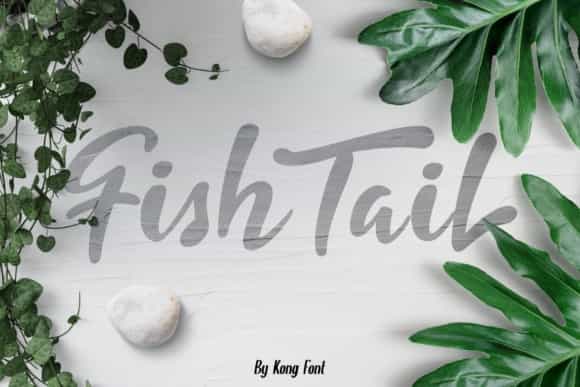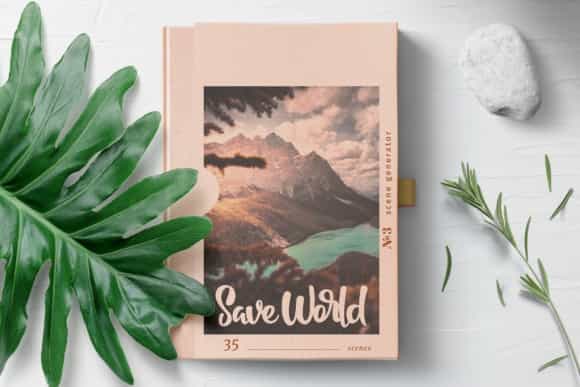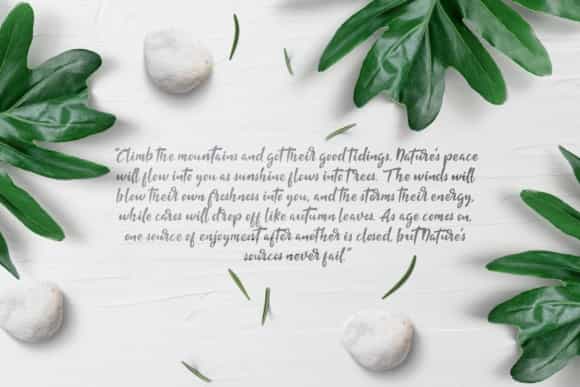
The Fishtail font was designed by a stylist and it has got the modern handwritten characters. Fishtail has got Extended Latin Characters. Fishtail fits just right for logos, display, product branding, wedding invitation card, stationary packaging, clothing flyer apparel magazines brochures label posters badges etc.